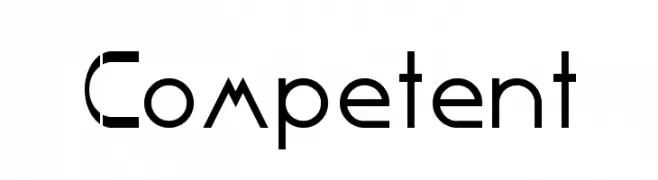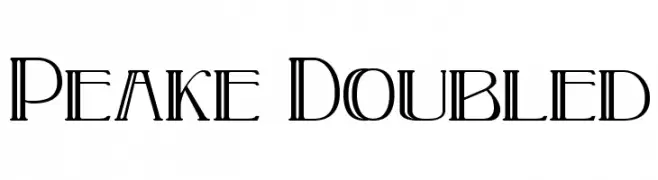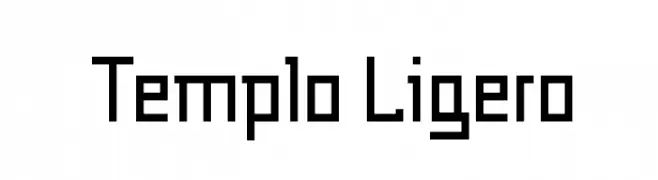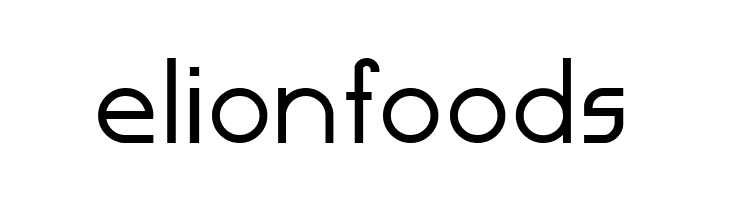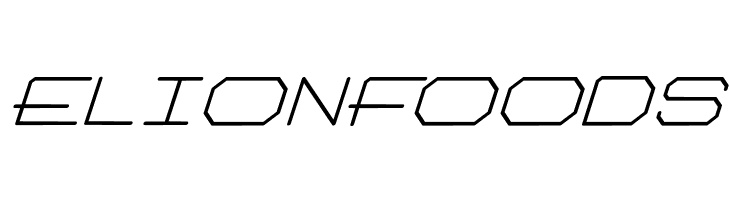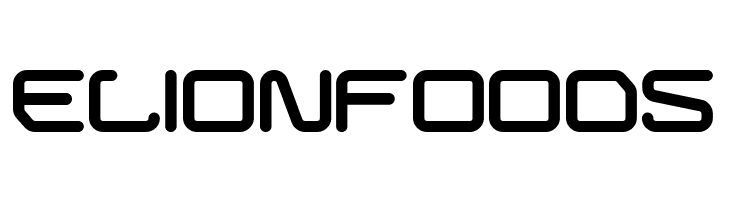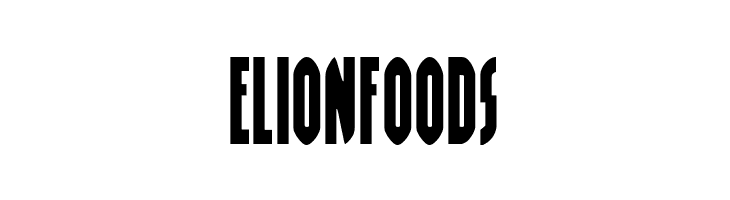
( Fonts by www.onezero.tv )
A modern, geometric font with rounded edges and a futuristic style.
A bold, geometric font with a vintage poster style.
A geometric, pixelated font with a retro digital aesthetic.
( Fonts by Paul Lloyd )
A modern, geometric font with a doubled line effect for added depth.
( Fonts by AEnigma - www.aenigmafonts.com )
A modern, geometric font with thin, uniform lines and a minimalist style.
( Fonts by AEnigma - www.aenigmafonts.com )
A modern, geometric font with clean, rounded edges and uniform stroke width.